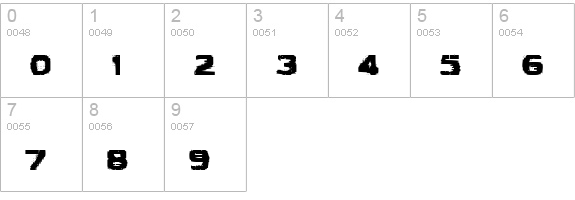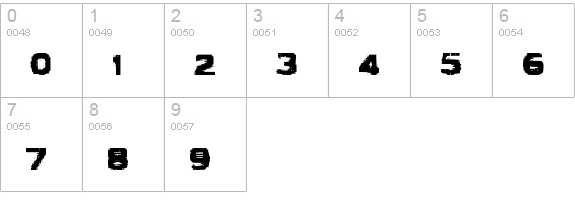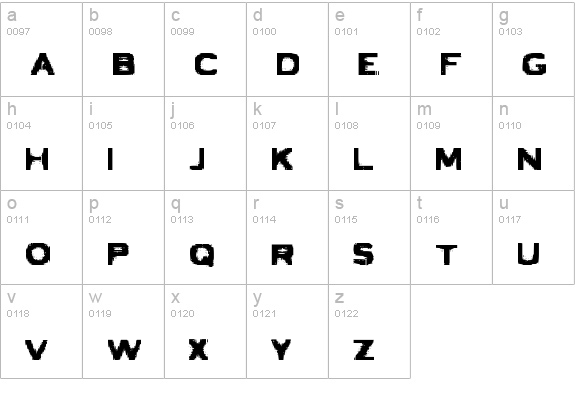
VTCBadLuck Regular Font Details
VTCBadLuck Regular is the standard, neutral variant in the VTCBadLuck typeface family \xE2\x80\x94 well suited to general body text, paragraphs, and standard typographic work.
VTCBadLuck Regular font is the epitome of edgy and bold design. With its unique and captivating letterforms, this font exudes a sense of rebellion and unpredictability. Its sharp angles and jagged edges create a visually striking effect, making it perfect for projects that require a touch of daring. The VTCBadLuck Regular font is ideal for a wide range of creative endeavors. Whether you're designing posters, album covers, or logos, this font will instantly add a touch of attitude and intrigue to your work. Its versatility allows it to be both eye-catching and legible, ensuring that your message is conveyed with impact. One of the best things about VTCBadLuck Regular font is that it is freely available to download at FontsMarket.com. This means that you can incorporate this stunning font into your projects without any financial constraints. Accessible to all, this font opens up a world of creative possibilities, allowing you to fully express your artistic vision. So why settle for the ordinary when you can embrace the extraordinary? Download VTCBadLuck Regular font today and let its bold and daring personality bring your designs to life. With its rebellious spirit and striking aesthetics, this font is sure to captivate and leave a lasting impression on anyone who encounters it.